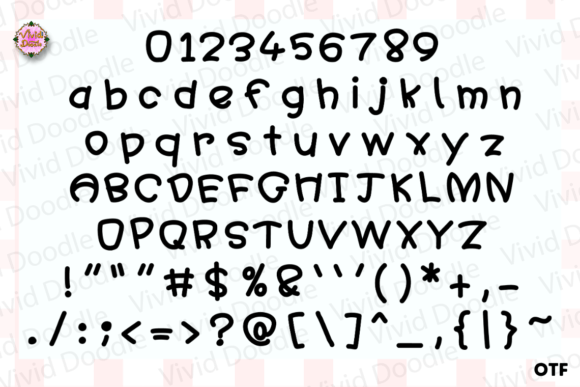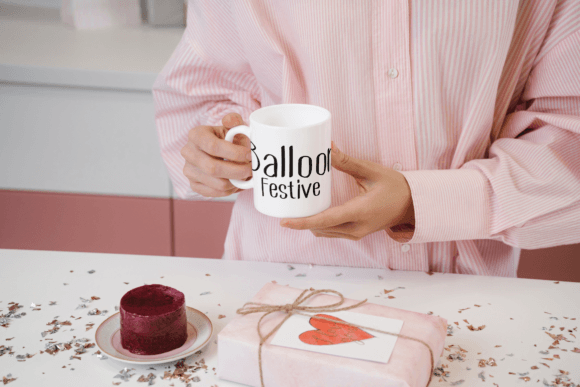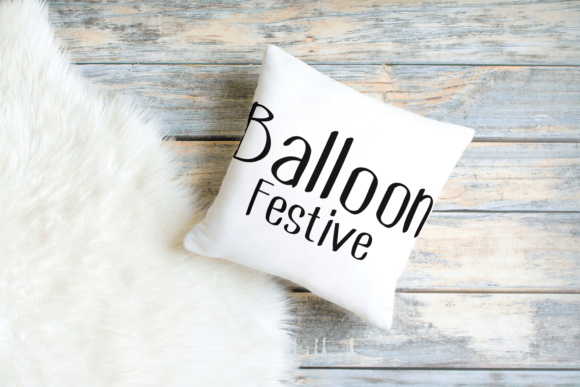
Introducing Balloon Festive Font: The Ultimate Holiday Companion for Designers and Crafters
Are you ready to infuse your designs and crafts with the magic of the holiday season? Look no further! We’re thrilled to introduce the Balloon Festive Font, a unique, hand-lettered typeface that embodies the warmth and joy of the festive season. This newly crafted font is specifically designed to help you create stunning holiday-themed projects that will leave a lasting impression on your audience.
What Makes Balloon Festive Font So Special?
The Balloon Festive Font is more than just a holiday font – it’s an experience. With its enchanting and exclusive design, this font is sure to transport your audience to a world of festive cheer and merriment. Here are just a few reasons why this font stands out:
- Hand-lettered with love: Each letter has been carefully crafted by hand to ensure a unique and personal touch.
- Festive and fun: The font’s playful design is perfect for creating holiday-themed projects that will put a smile on everyone’s face.
- Highly adaptable: Whether you’re working on a Christmas card, a holiday party invitation, or a festive craft project, this font is versatile enough to fit any design style.
- Exclusive and unique: Stand out from the crowd with a font that’s specially designed to make your creations shine.
How to Use Balloon Festive Font in Your Projects
The Balloon Festive Font is perfect for a wide range of projects, from digital designs to handmade crafts. Here are some ideas to get you started:
- Holiday cards and invitations: Create stunning holiday cards and invitations that will set the tone for your festive celebrations.
- Festive crafts: Add a touch of holiday magic to your crafts, such as scrapbooking, paper crafting, and DIY projects.
- Digital designs: Use the font in your digital designs, such as social media graphics, blog posts, and email newsletters.
- Packaging and labeling: Add a festive touch to your product packaging and labeling with this unique font.
Tips and Tricks for Getting the Most Out of Balloon Festive Font
To help you get the most out of this amazing font, here are some tips and tricks:
- Experiment with colors: Try pairing the font with different colors to create unique and eye-catching designs.
- Mix and match: Combine the font with other design elements, such as graphics and images, to create stunning compositions.
- Play with sizes: Experiment with different font sizes to create visual interest and hierarchy in your designs.
Why Designers and Crafters Love Balloon Festive Font
Get Ready to Spread Holiday Cheer with Balloon Festive Font